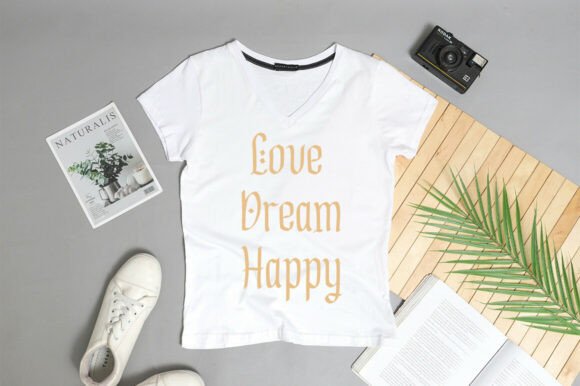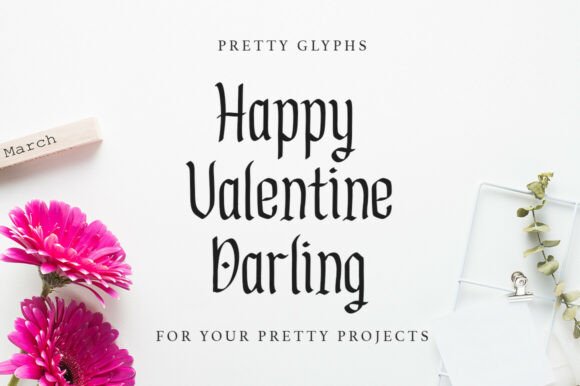
Unleashing the Power of Black Letter Font: A Modern Twist on a Timeless Classic
Infused with vigorous boldness and effortless charm, the Black Letter font, composed by hand, embodies expression in its fullest. Stirred by genuine brush strokes, every character is imbued with a sense of fluid motion and adorned with an artisan-made texture, loading every design with instant appeal. In this article, we’ll explore the world of Black Letter fonts, their history, and what makes them an essential tool for designers looking to add a touch of “modern gothic” to their work.
A Brief History of Black Letter Fonts
Black Letter fonts have a rich history dating back to the Middle Ages. They originated in Europe during the 12th century and were used extensively in manuscripts, books, and other written materials. The term “Black Letter” refers to the dense, bold, and ornate style of lettering that characterized this period. Traditional Black Letter fonts, such as Gothic scripts, were often used in formal documents, certificates, and other official materials.
The Evolution of Black Letter Fonts
Over time, Black Letter fonts have evolved to adapt to changing design trends and technological advancements. While traditional Black Letter fonts were often dense and ornate, modern interpretations have introduced cleaner, more legible silhouettes. The Black Letter font we’ll be discussing in this article offers a fresh take on the classic style, combining boldness with elegance and sophistication.
Characteristics of the Modern Black Letter Font
This Black Letter font is composed by hand, with every character imbued with a sense of fluid motion and adorned with an artisan-made texture. The font features:
- Sharp terminals: Each character is crafted with sharp terminals that add a touch of precision and elegance to the font.
- Rhythmic verticality: The font’s vertical lines create a sense of rhythm and flow, adding to its overall dynamism.
- Balanced weight: The font’s balanced weight makes it easy to pair with other fonts, creating a striking contrast between old-world charm and modern simplicity.
What Makes This Black Letter Font Stand Out
Unlike traditional Black Letter fonts, this modern interpretation offers a cleaner, more legible silhouette while retaining that unmistakable sense of heritage and edge. The font’s unique blend of boldness and elegance makes it perfect for designers looking to add a touch of “modern gothic” to their work.
Use Cases for the Black Letter Font
This Black Letter font is an essential tool for designers working on projects that require a touch of dark aesthetics and modern gothic flair. Some potential use cases include:
- Craft brewery labels: The font’s bold, yet elegant style makes it perfect for craft brewery labels, adding a touch of sophistication to packaging design.
- Tattoo studio branding: The font’s edgy, modern gothic style makes it ideal for tattoo studio branding, conveying a sense of boldness and creativity.
- High-end streetwear collections: The font’s unique blend of old-world charm and modern simplicity makes it perfect for high-end streetwear collections, adding a touch of dark aesthetics to branding and packaging.
Pairing the Black Letter Font with Other Fonts
One of the key benefits of this Black Letter font is its balanced weight, which makes it easy to pair with minimalist sans-serif fonts. This contrast between old-world charm and modern simplicity creates a striking visual effect, adding depth and interest to designs.
In conclusion, the Black Letter font is a powerful tool for designers looking to add a touch of “modern gothic” to their work. With its unique blend of boldness, elegance, and sophistication, this font is perfect for a wide range of design projects, from craft brewery labels to high-end streetwear collections. Its balanced weight and clean silhouette make it easy to pair with other fonts, creating a striking contrast between old-world charm and modern simplicity.
Whether you’re a designer, crafter, or simply someone who appreciates the art of typography, the Black Letter font is definitely worth exploring. Its timeless classic style, infused with modern vigor and charm, makes it an essential addition to any design toolkit.